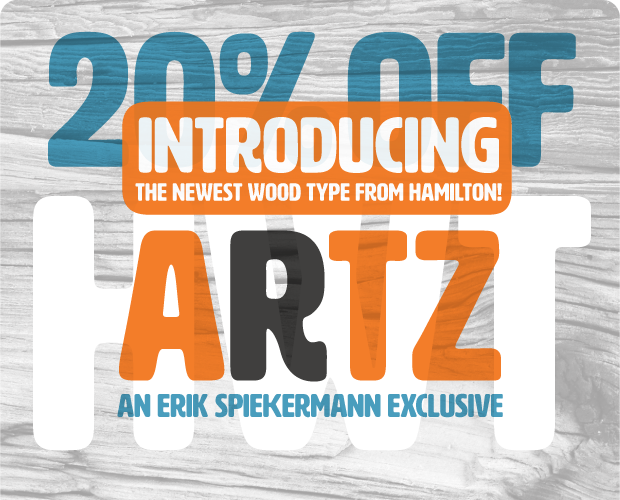
HWT Artz — a wood type by Erik Spiekermann
HWT Artz is the newest wood type to be cut at Hamilton Wood Type and Printing Museum. It was designed by venerable type designer Erik Spiekermann exclusively for his own print studio (P98a in Berlin), specifically to be cut into large size wood type. The digital version is being offered to the general public with proceeds of sales to benefit the museum's ongoing operations.